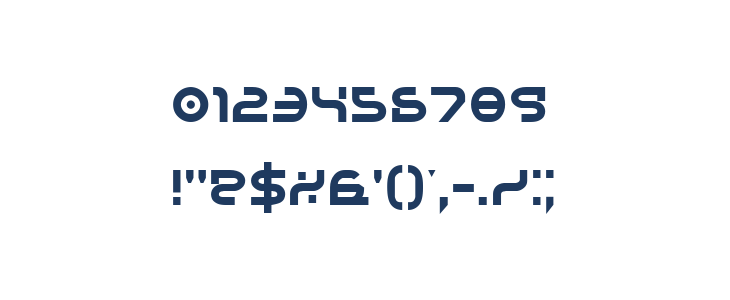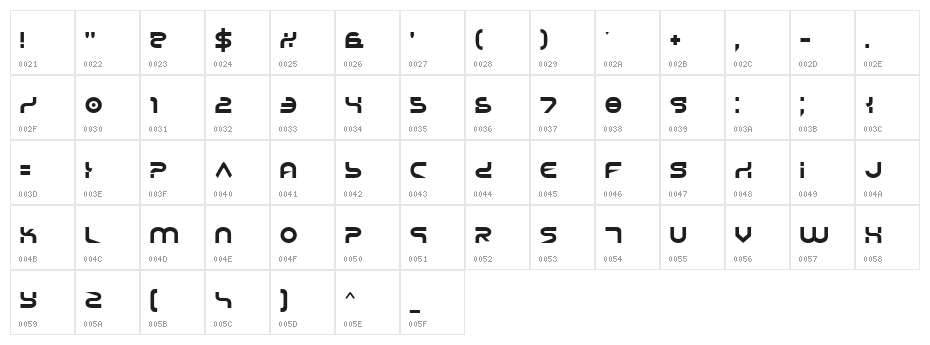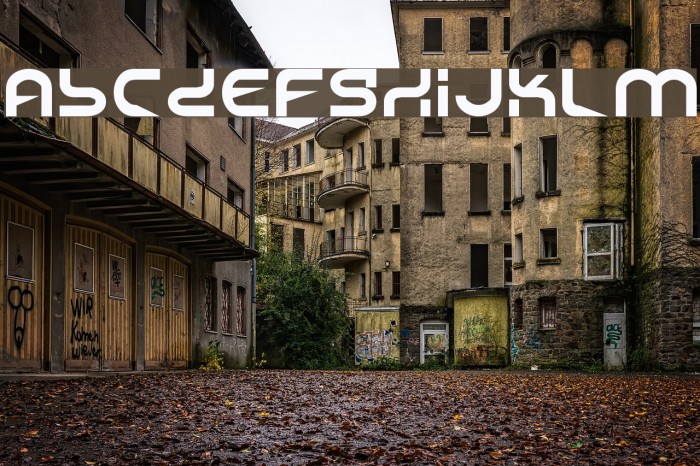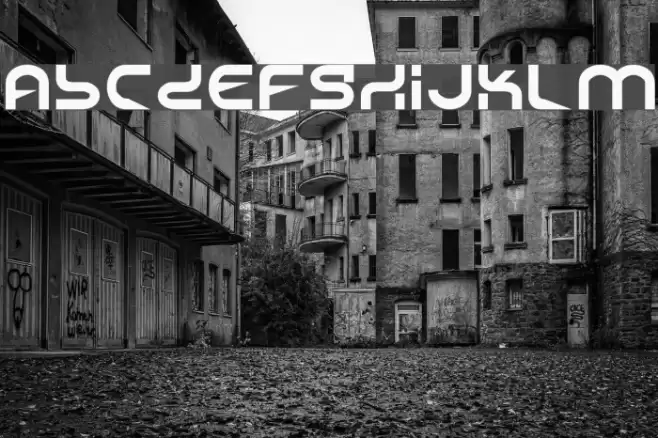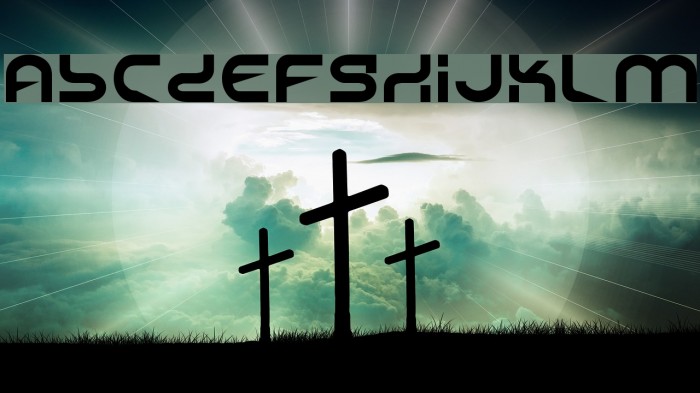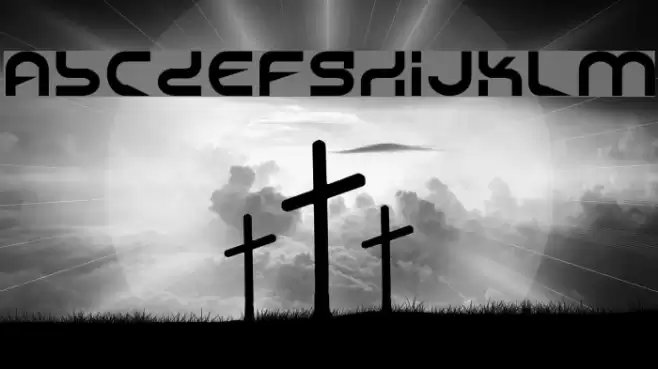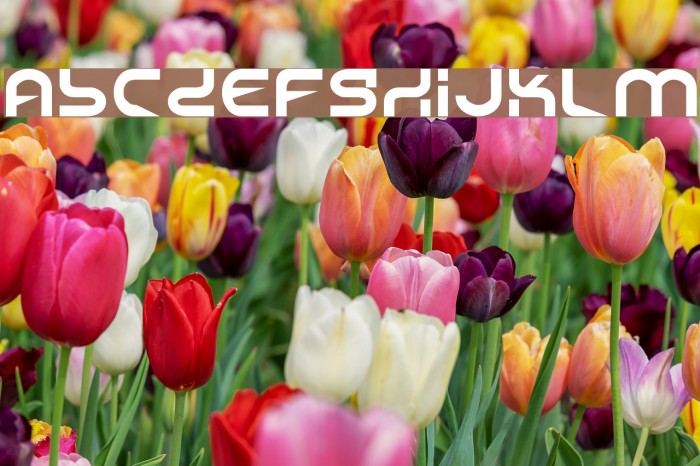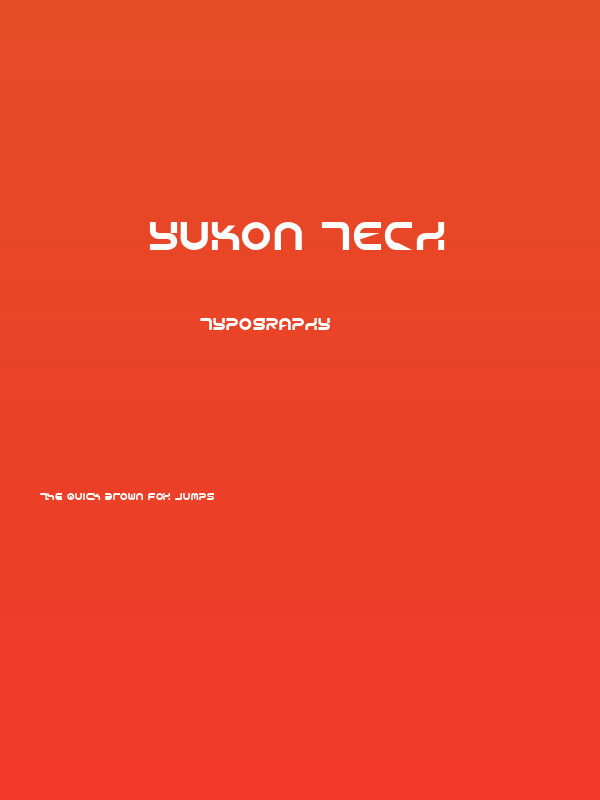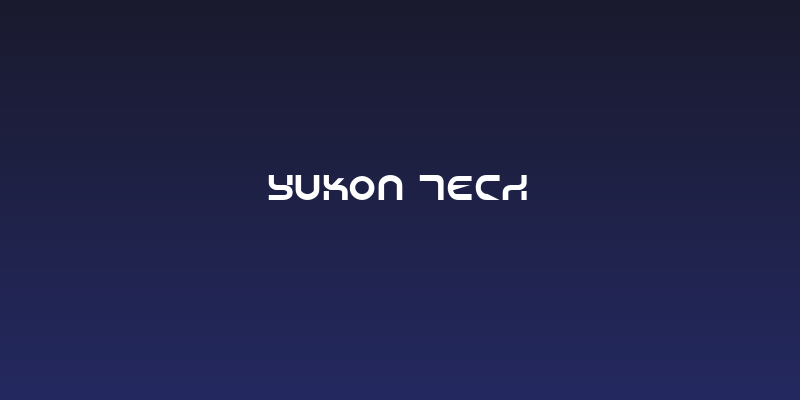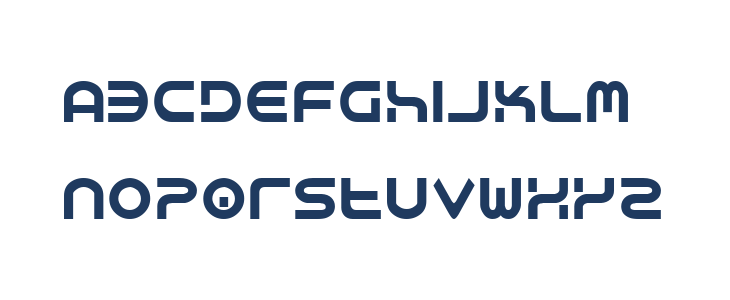
Yukon Tech Font
Yukon Tech Description
This font features a futuristic and geometric design with a strong emphasis on angular shapes and clean lines. The characters are bold and have a distinct sci-fi aesthetic, making them ideal for modern and tech-oriented projects. The uppercase and lowercase letters maintain a consistent style, with some characters exhibiting unique cuts and curves that add to the font's dynamic appearance. The numerals and special characters are equally stylized, ensuring a cohesive look across all text elements. The font's design is both eye-catching and versatile, suitable for various digital and print applications.
| Proposed Projects | Ideal for technology branding, sci-fi movie posters, video game titles, and digital interfaces. |